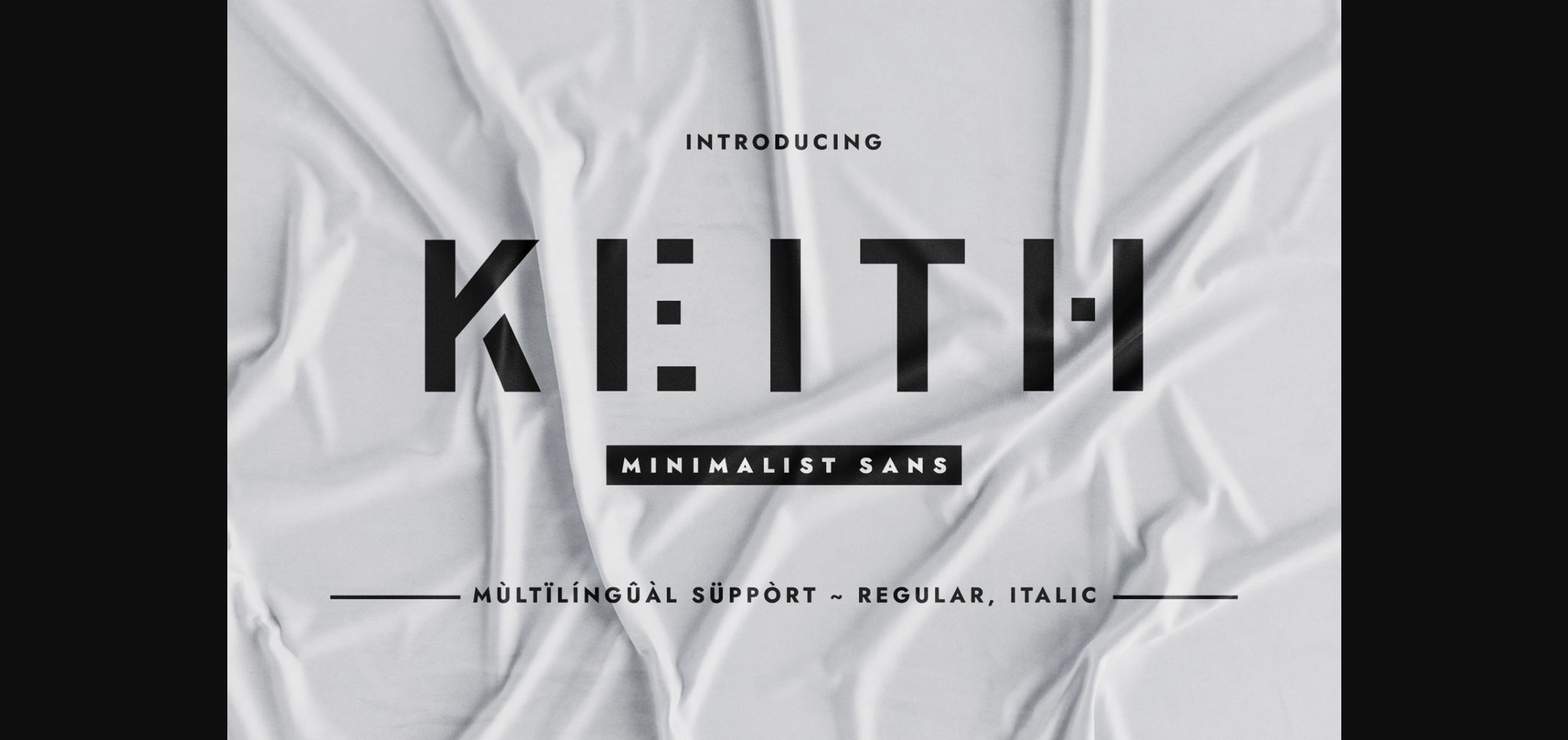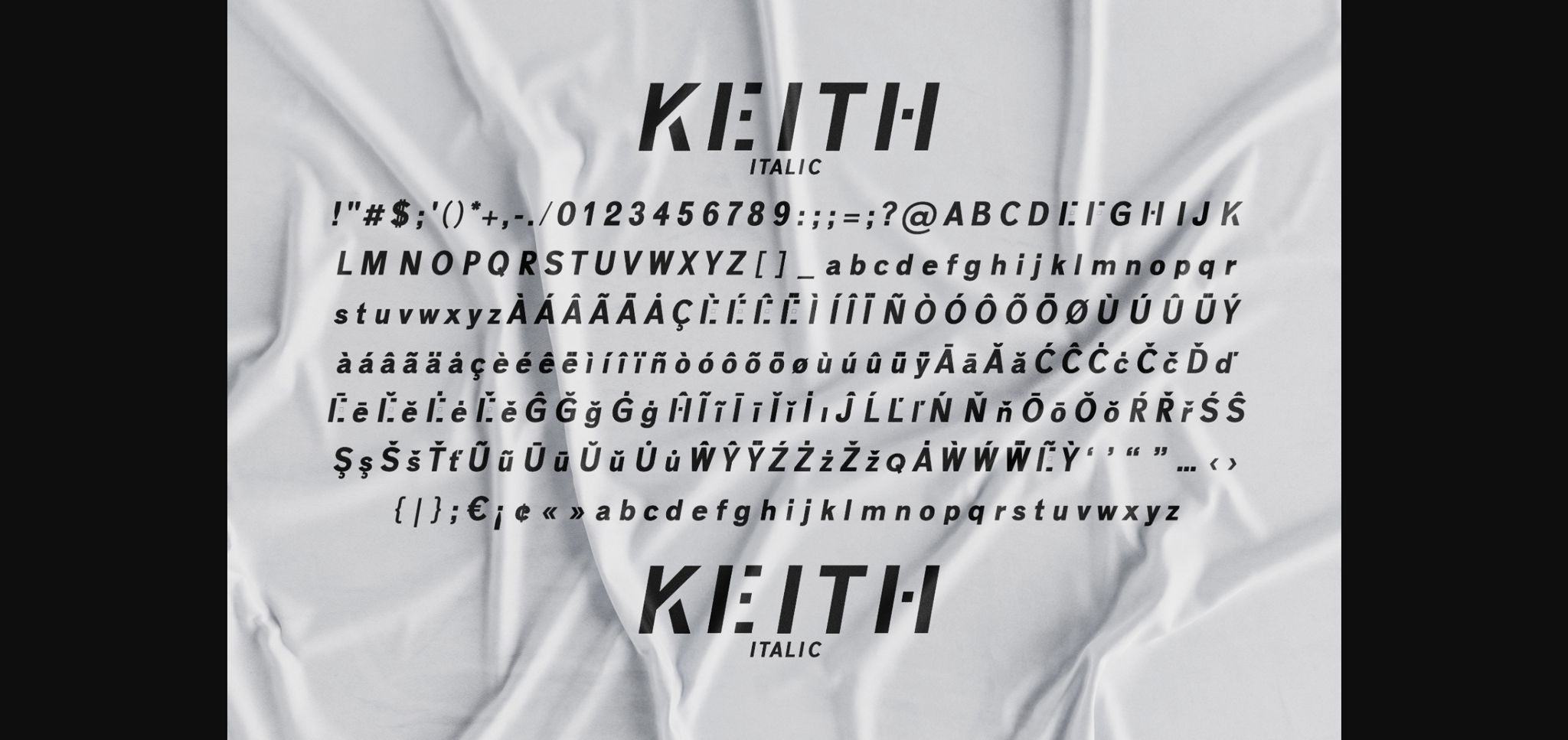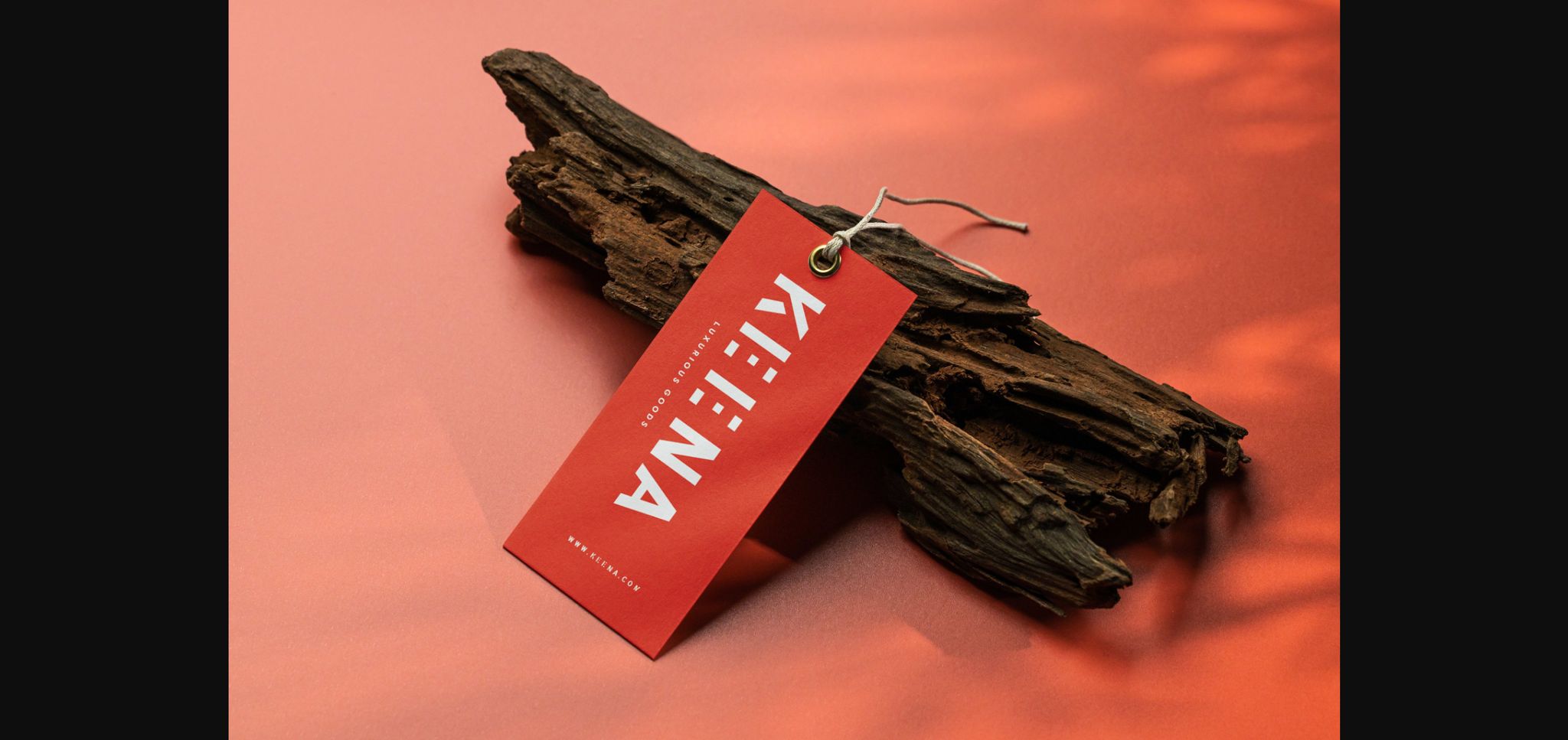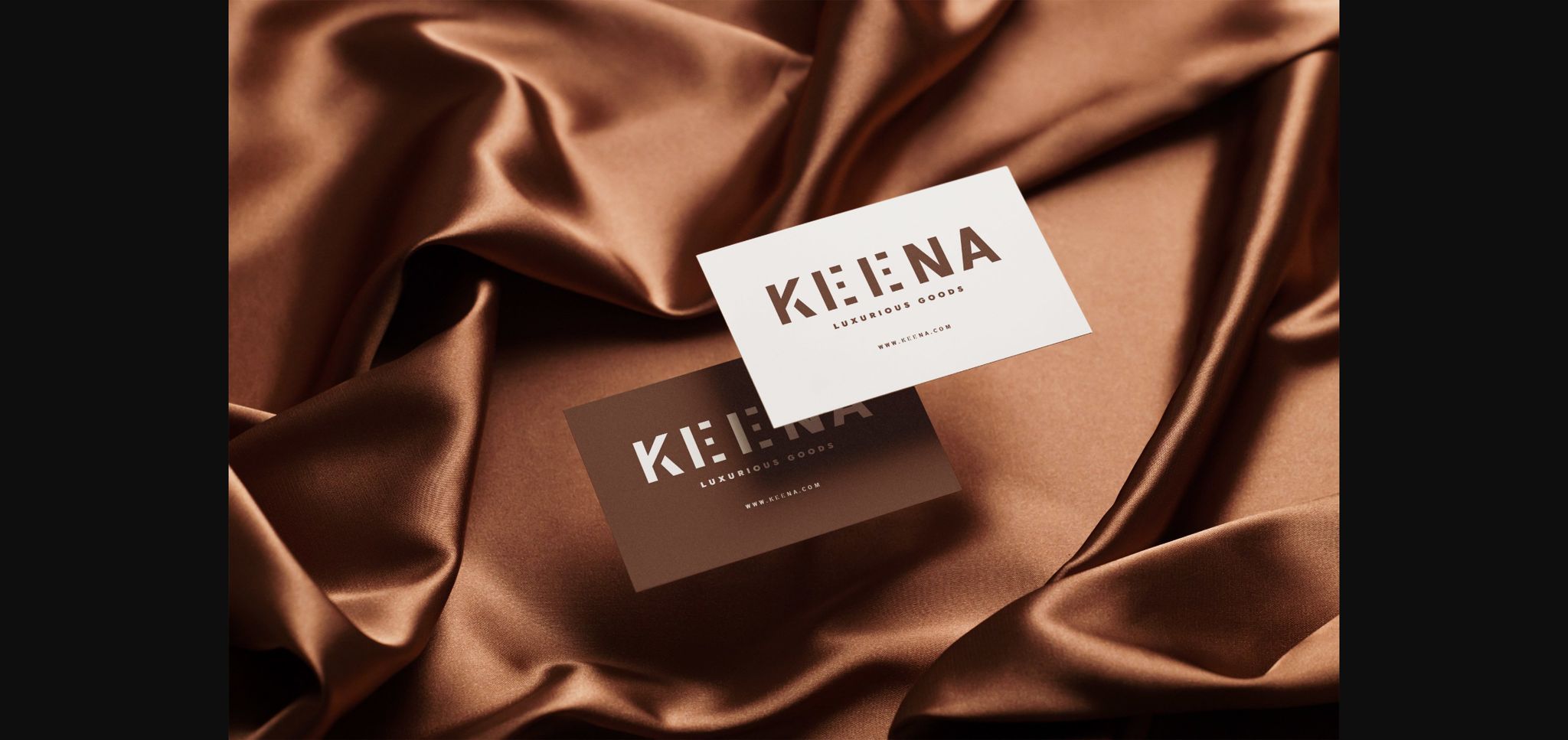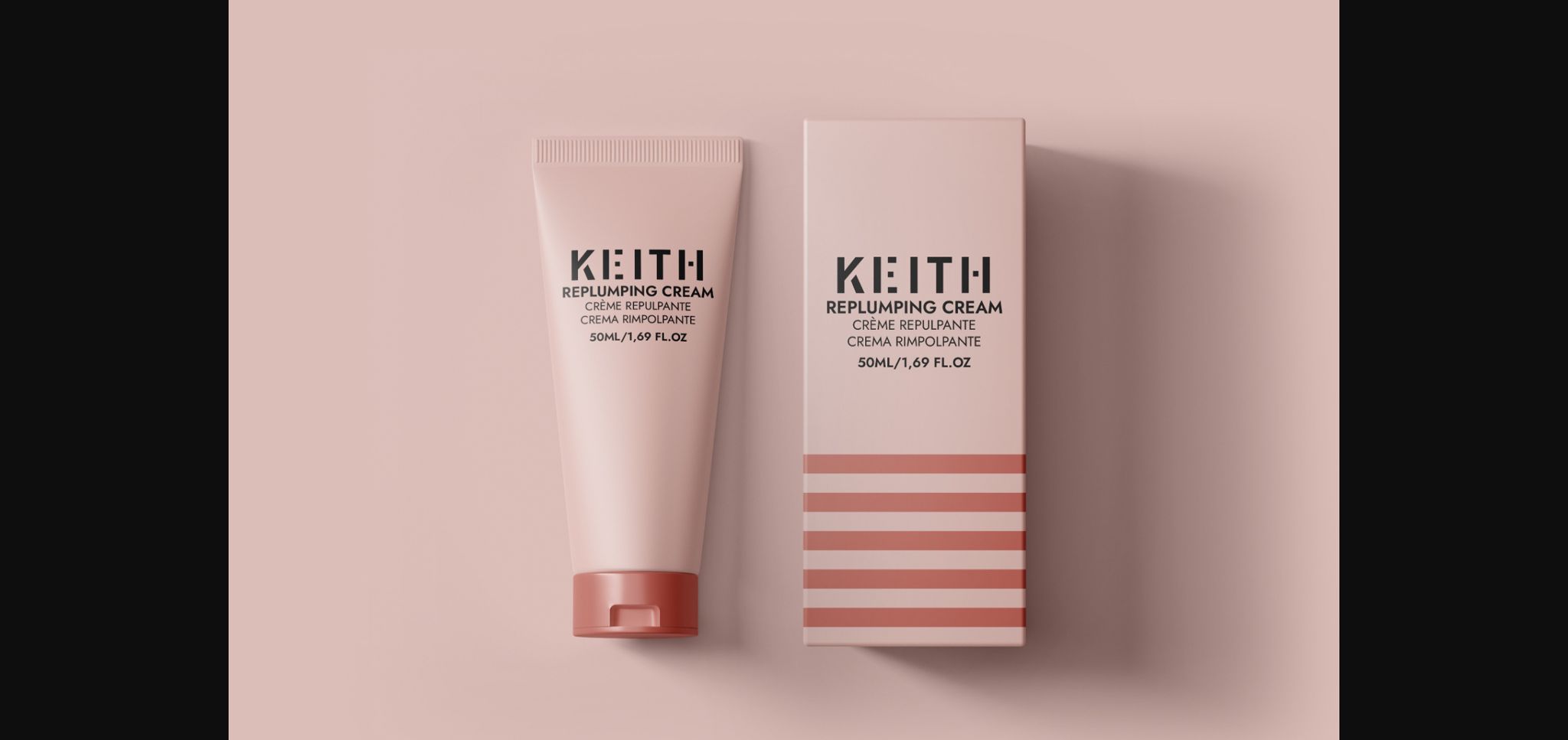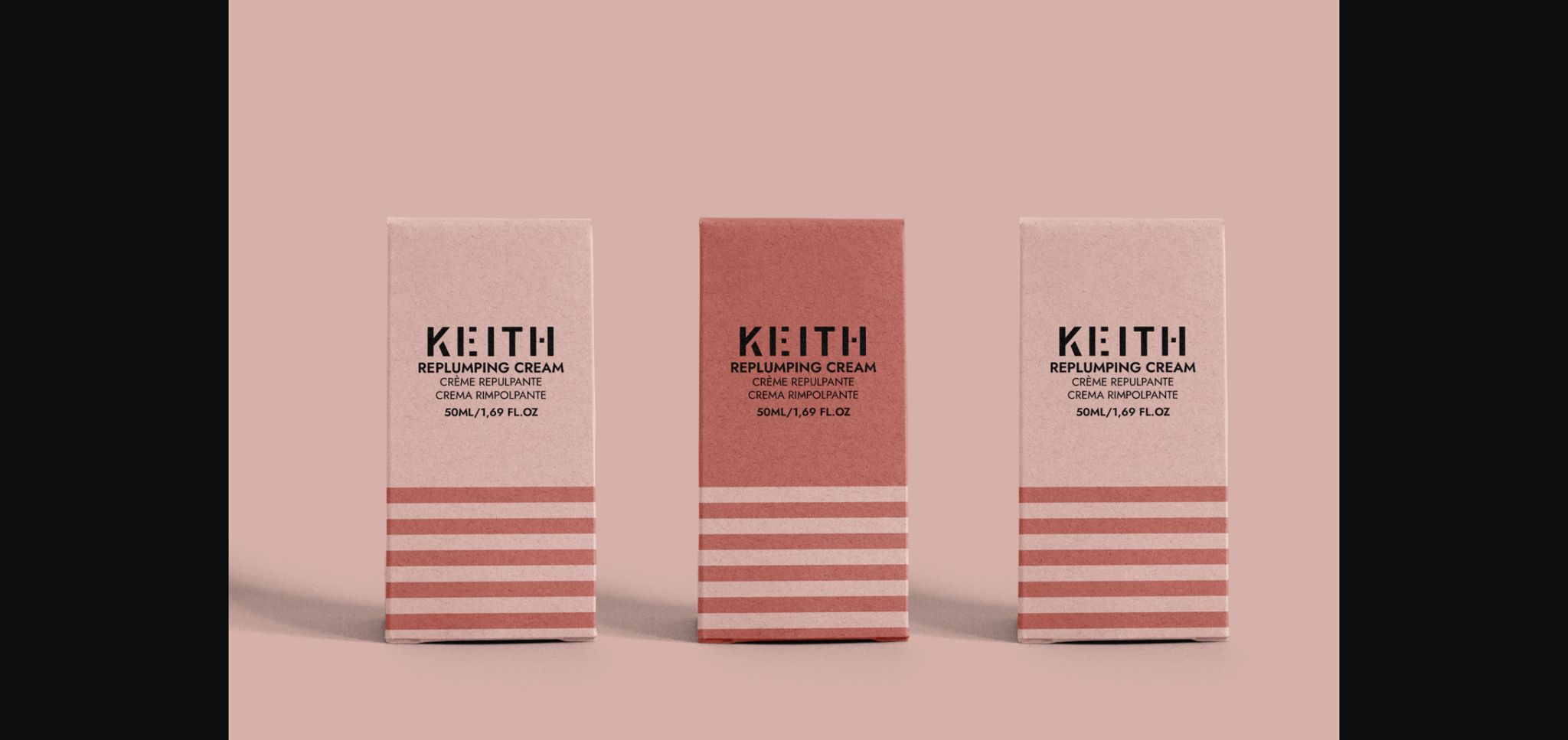
About Keith Font
Keith is a modern, minimalist, and clean sans serif typeface. It can be used to design various themes such as newspapers, posters, cosmetics, packaging, branding, website banners, magazine covers, video game covers, movie titles, social media posts, logos, and much more!